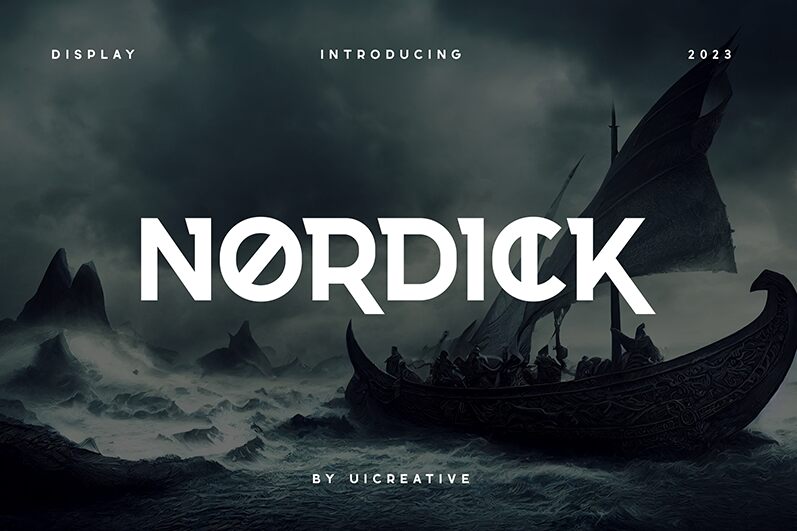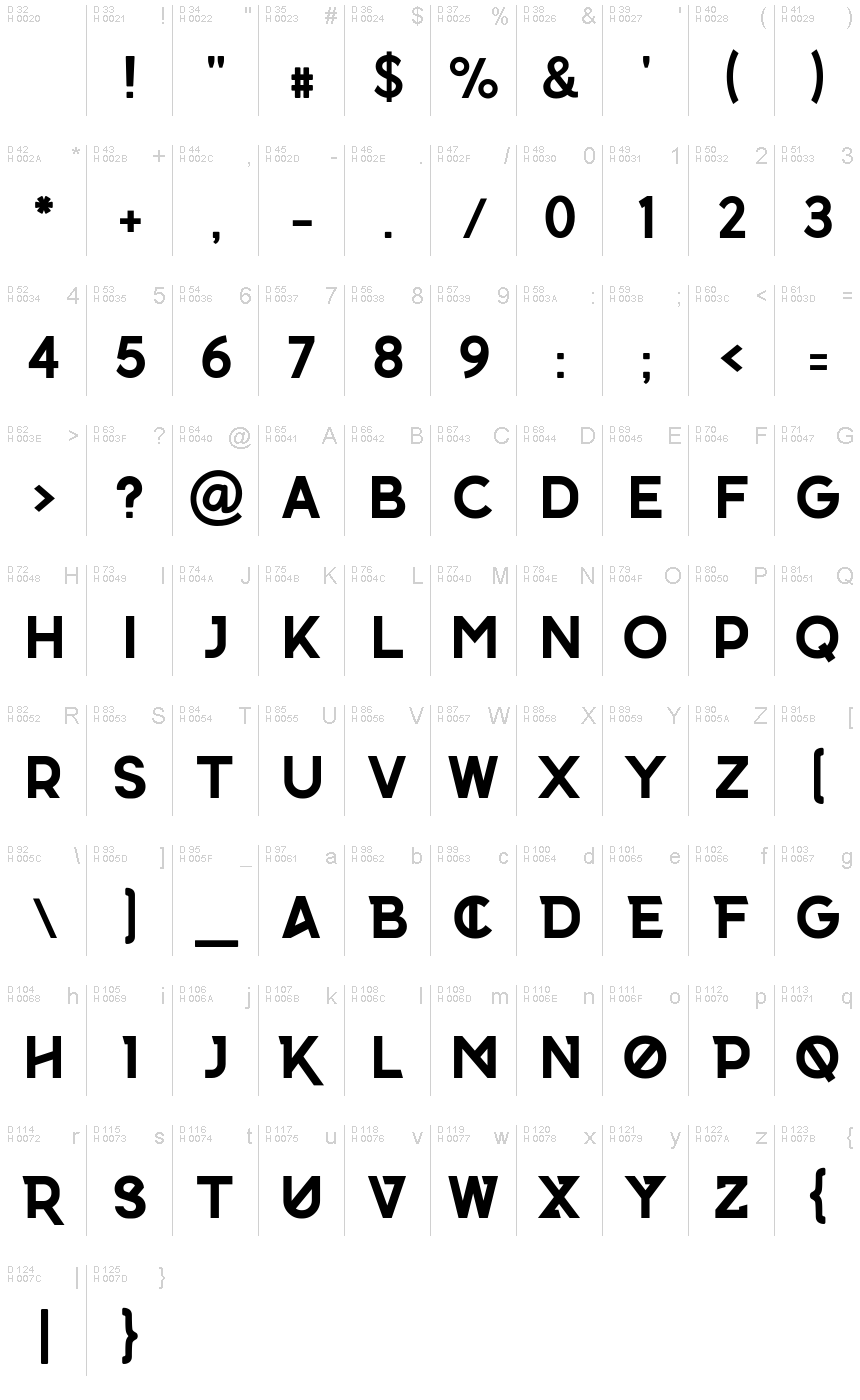
Nordick, a bold and captivating font crafted by UI Creative, exudes a distinct sense of strength and modern elegance. With its sharp, geometric letterforms and striking contrast, this font commands attention, making it a standout choice for impactful designs. The clean, minimalist aesthetic of Nordick lends itself to a wide range of applications, from sleek branding and eye-catching headlines to dynamic user interfaces and bold typographic compositions.
Nordick's versatility lies in its ability to effortlessly transition between formal and informal settings. Its powerful presence ensures it shines in high-impact scenarios, while its refined sensibility allows for seamless integration into more refined, sophisticated design environments. This font's versatility and visual impact make it a compelling option for designers seeking to elevate their projects with a bold, modern typographic solution.